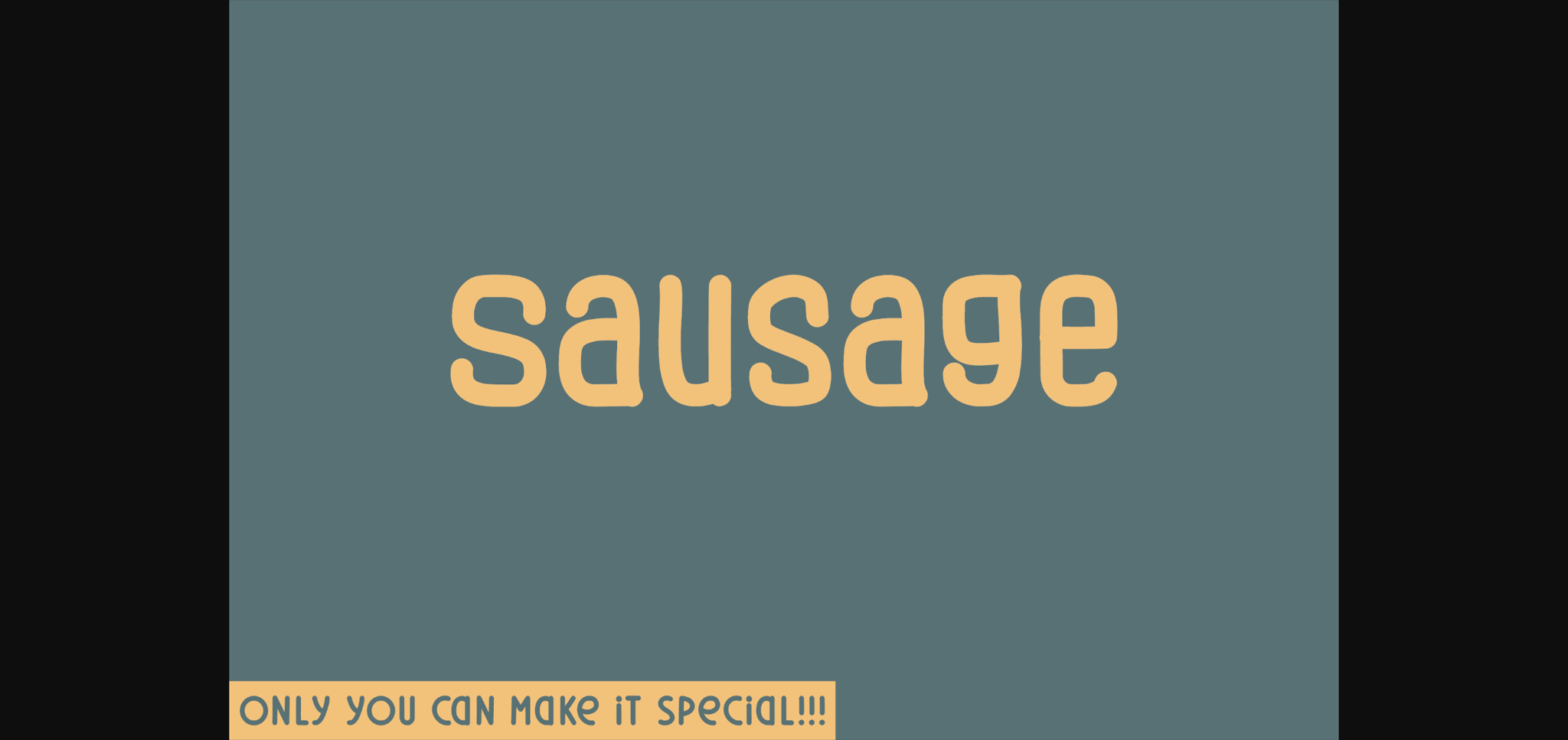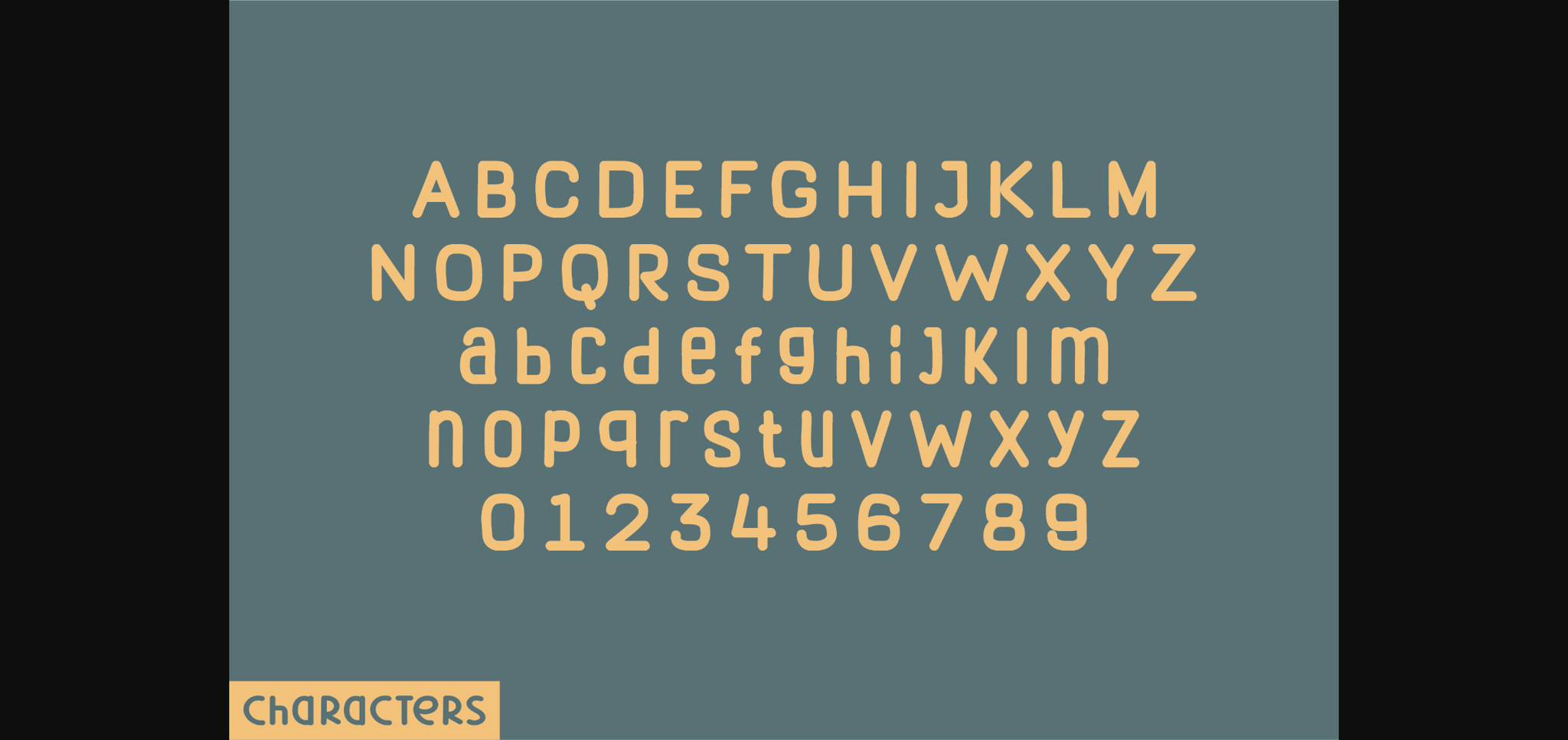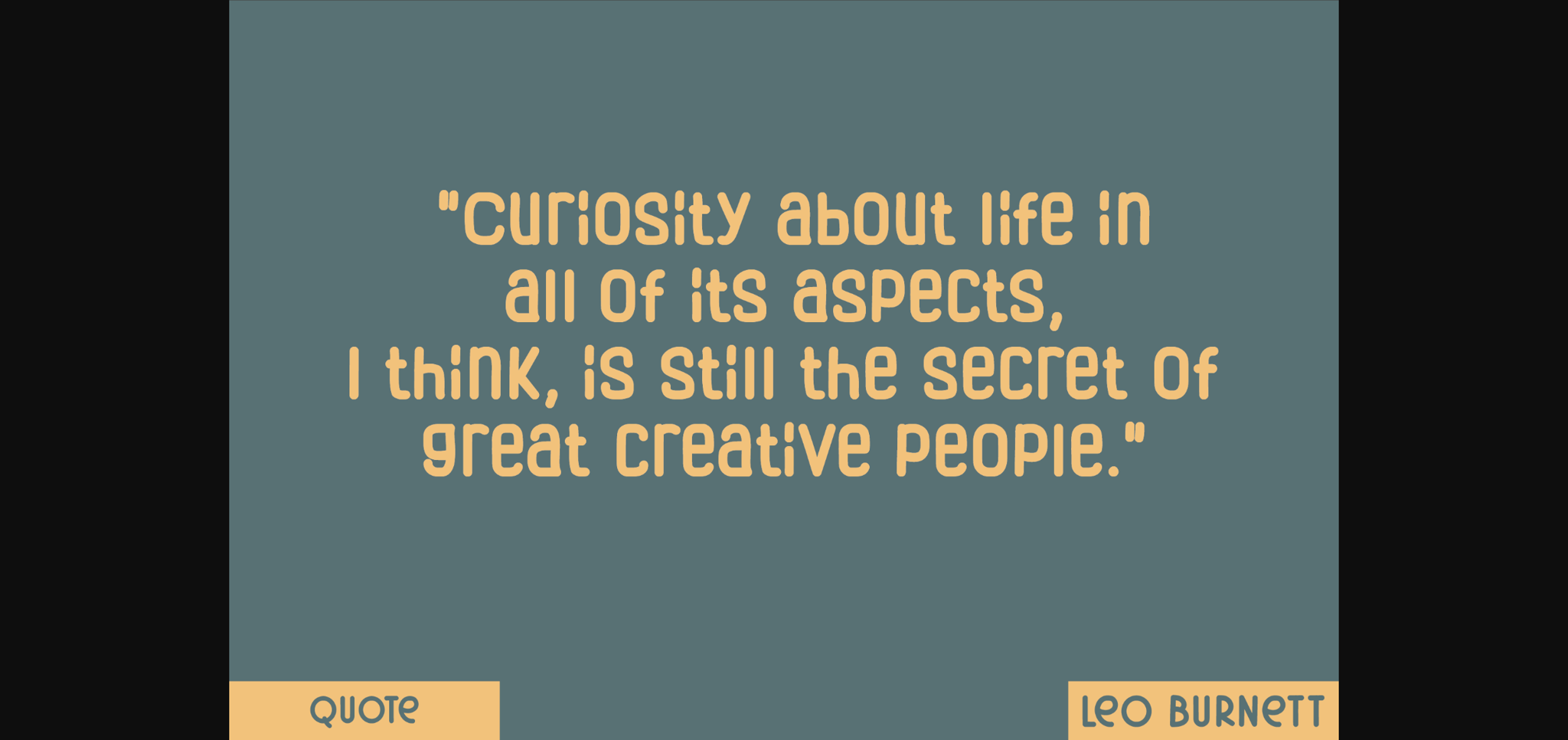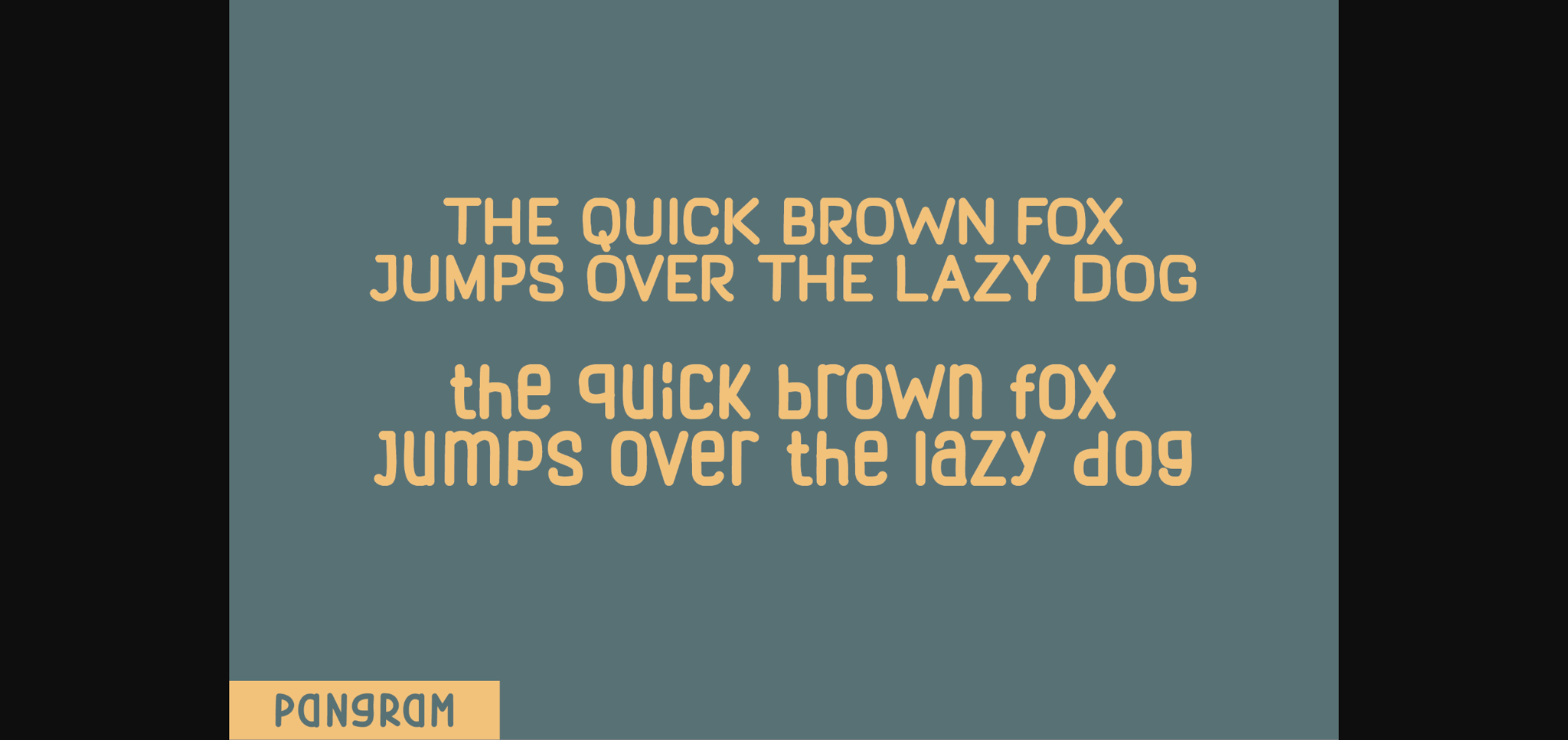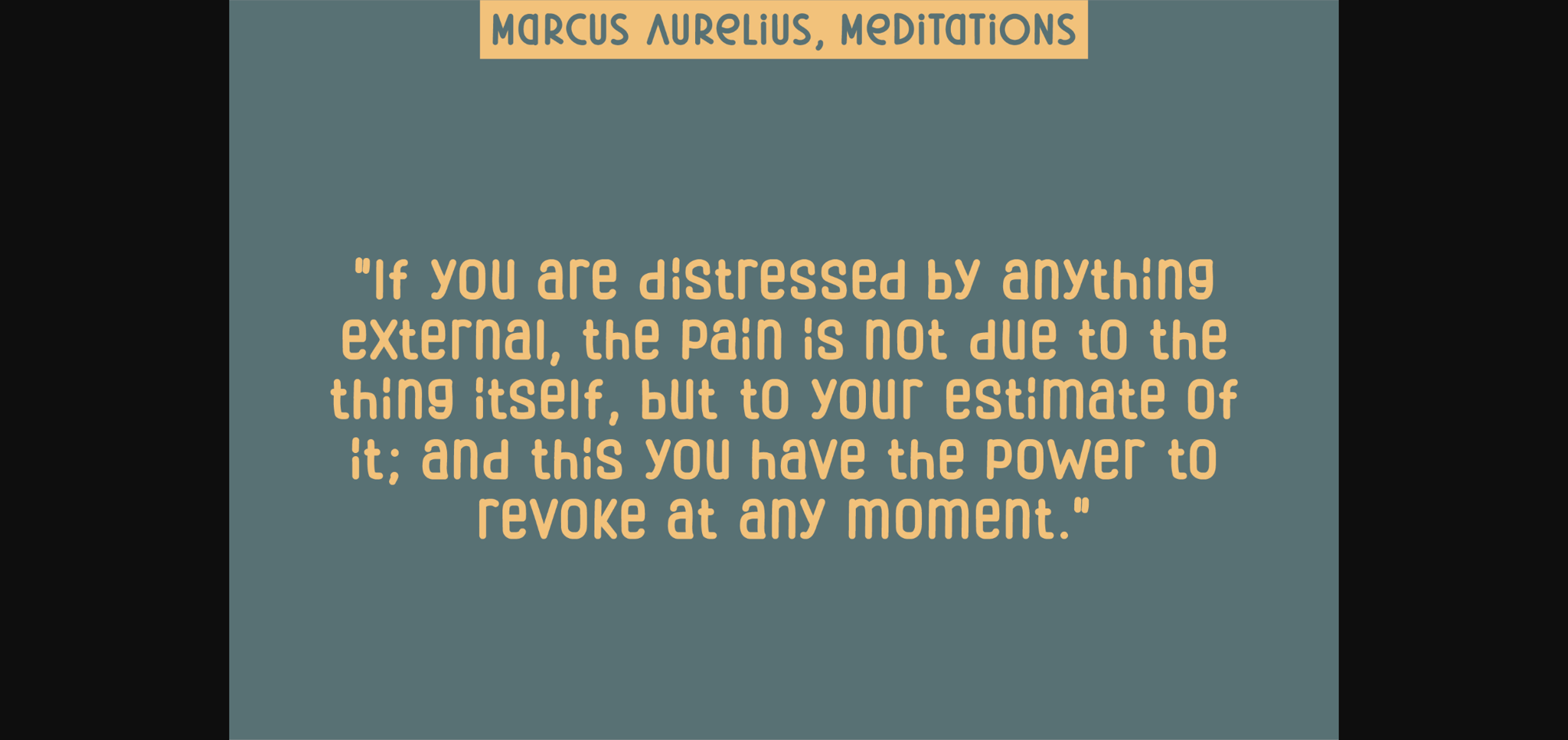
HomeSans Serif FontsSausage Font Sans Serif Fonts Sausage Font FacebookXPinterestWhatsApp 1 of 7 ... Sausage Font Poster 2... Sausage Font Poster 3... Sausage Font Poster 4... Sausage Font Poster 5... Sausage Font Poster 6... Sausage Font Poster 7... About Sausage Font Sausage is a natural sans serif font created without changing a single node in each character’s indentation – this makes this font very interesting and unique. Perfect for quotes, notes, tees, and any product design. DOWNLOAD NOW People also explored Kalulla Font Imstory Font Basiline Font Margarete Font Mens Brown Bella Canvas 3001 Mockup Tee Arnabelle Script Font Kentucky Font Summer Christmas Font Dellita Font 330 0 TagsSausageSausage Font Previous articleSweet Cream FontNext articleCornstarch Font LEAVE A REPLY Cancel reply Comment: Please enter your comment! Name:* Please enter your name here Email:* You have entered an incorrect email address! Please enter your email address here Website: Save my name, email, and website in this browser for the next time I comment. Personal Use Free Mustica Personal Use Free Read more about this font Nugo Sans Personal Use Free Read more about this font Omellia Personal Use Free Read more about this font Boldist Personal Use Free Read more about this font BLOG Fonts That Capture the Spirit of New York City New York City is more than just a place—it’s an experience, a rhythm, a visual language... The 10 Best Handwriting Fonts to Add Personality to Your Designs 5 Fonts That Will Dominate Design Trends in 2026 Exploring Font Trends